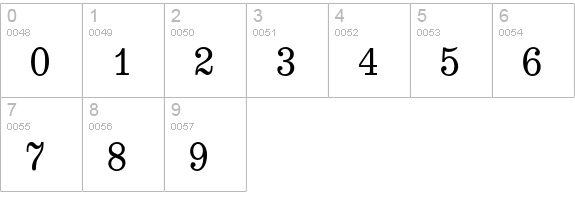
Egizio-Regular Font Details
Egizio-Regular is the standard, neutral variant in the Egizio typeface family \xE2\x80\x94 well suited to general body text, paragraphs, and standard typographic work.
Egizio-Regular is a stunning font that combines elegance and versatility, making it the perfect choice for a wide range of design projects. With its classic yet contemporary design, this font exudes sophistication and style. The strong and clean lines of Egizio-Regular create a sense of authority and professionalism, making it ideal for corporate branding, editorial designs, and advertising materials. Its legibility ensures that your message will be conveyed clearly and effectively. What sets Egizio-Regular apart is that it is not only visually appealing, but also free to download. Yes, you heard it right! This amazing font is freely available to download at FontsMarket.com. Now, you can elevate your designs without breaking the bank. Whether you are a professional designer or a hobbyist, Egizio-Regular will surely become your go-to font. Its versatility allows it to be used in a variety of design contexts, from website headers to product packaging. With its wide range of characters and glyphs, you have the freedom to create unique and eye-catching designs. Don't miss out on the opportunity to add Egizio-Regular to your font collection. Visit FontsMarket.com today and download this incredible font for free. Unleash your creativity and take your designs to the next level with Egizio-Regular.